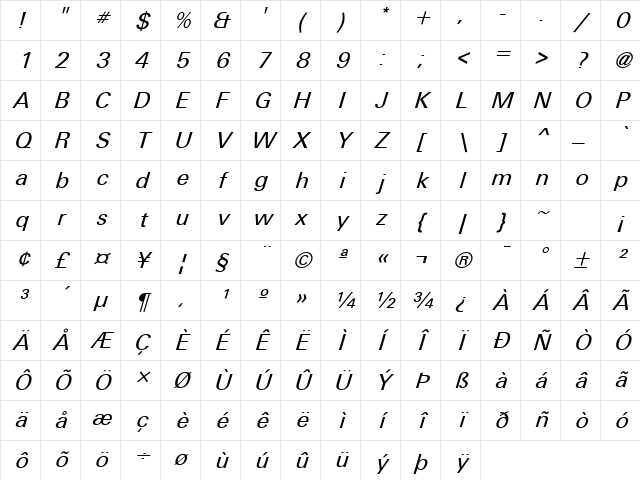
Unique ITALIC
Style: ITALIC
Unique Family
Complete Unique ITALIC glyph index. Displaying only characters natively supported by Unique ITALIC font.
Design Context for Unique
Unique is a composed and adaptable typeface that performs quietly and consistently across a wide range of design contexts. The slanted form adds forward momentum and visual energy.